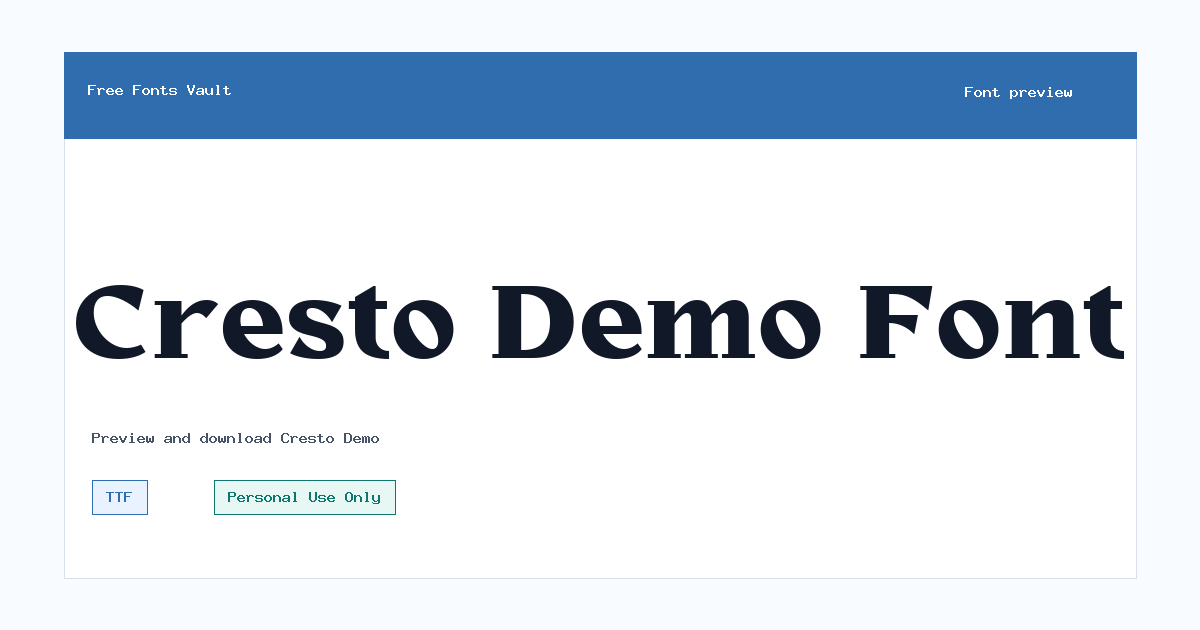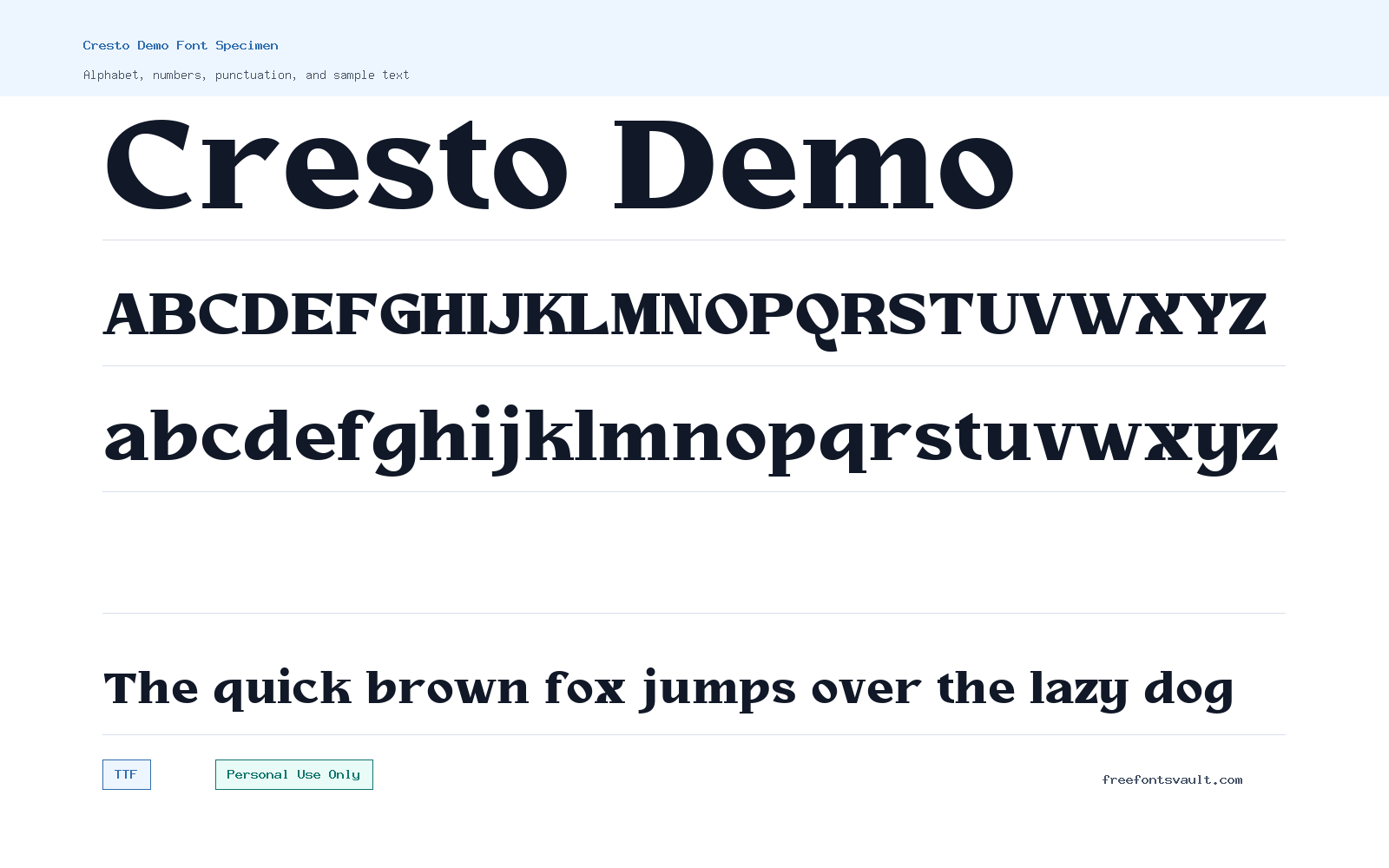
Cresto Demo
Cresto Demo font preview showing the family name
Cresto Demo Font
Cresto Demo font specimen showing alphabet, numbers, and sample text
• Designer Ragamkata Studio
Cresto Demo font.
Cresto Demo is a serif font with a regular TTF style, made for personal-use projects where a polished, editorial-looking typeface can help short text feel more distinctive.
About Cresto Demo
Cresto Demo works best when you give it space. Its serif structure makes it a stronger choice for display settings than for dense reading text, especially if you are testing it for titles, logo drafts, poster headings, invitations, packaging mockups, or social graphics. Because the available style is a regular 400 weight, it is useful for designers who want a balanced starting point rather than a full multi-weight family. Try it first in words with mixed letter shapes, such as brand names, event titles, or short phrases, so you can judge the spacing, contrast, and overall rhythm before using it in a finished layout.
Cresto Demo is also a practical font to test when you want a classic serif impression without adding too many competing type styles to a design. Use it sparingly: a logo, a main heading, a pull quote, or a cover title will usually show its character better than a long paragraph. If the layout starts to feel crowded, increase letter spacing slightly, add more margin around the type, or move the smaller information into a simpler companion font. This keeps the serif details visible and helps the design stay readable on screens and printed drafts.
• Serif display character suited to short, prominent text rather than long body copy
• Useful for personal logo drafts, posters, invitations, title graphics, and brand-style mockups
• Works well when paired with a clean sans serif for captions, menus, descriptions, and supporting text
• Personal logo concepts and nameplate experiments
• Poster headlines, event titles, and cover-style typography
• Invitation designs, mood boards, and editorial mockups
• Web design previews where the font is used for headings rather than body text
• Short social media graphics or quote layouts for personal projects
Cresto Demo is credited to Ragamkata Studio.
Who designed Cresto Demo?
Cresto Demo is credited to Ragamkata Studio.
What weight is available for Cresto Demo?
The available variant is regular, listed as weight 400.
Is Cresto Demo good for logos?
Can I use Cresto Demo for website headings?
What should I pair with Cresto Demo?
Pair it with a clean sans serif for body text, captions, navigation, and small details. Let Cresto Demo handle the main title or short display text.
Is Cresto Demo suitable for long paragraphs?
It is better to test it as a display font for short text. For long reading sections, use a simpler text face and keep Cresto Demo for headings or accents.